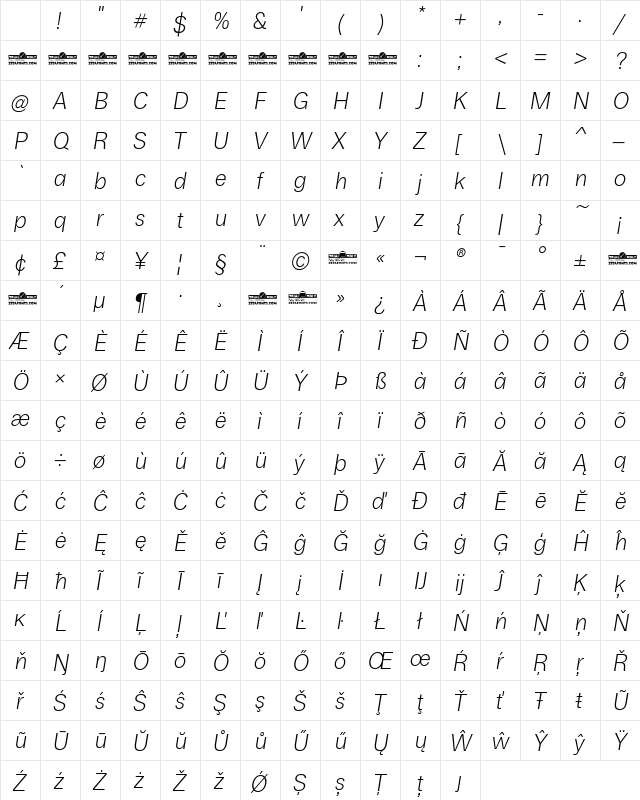
Complete Boring Sans A Trial Light Italic glyph index. Displaying only characters natively supported by Boring Sans A Trial Light Italic font.
Boring Sans A Trial is a composed and adaptable typeface that performs quietly and consistently across a wide range of design contexts. The slanted form adds forward momentum and visual energy. Its slender proportions lend an understated elegance to any composition.